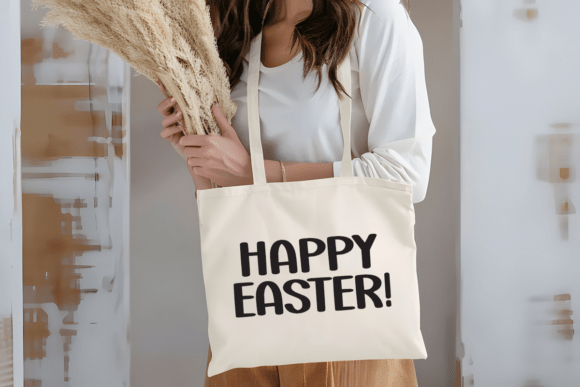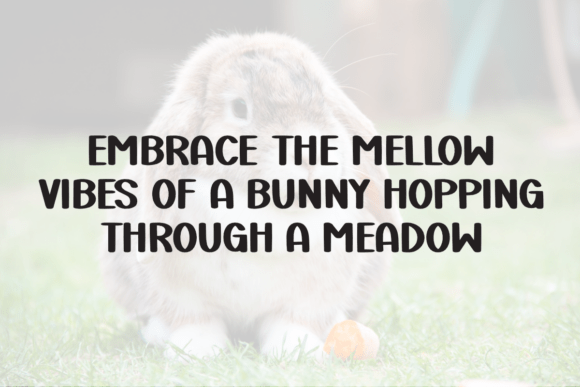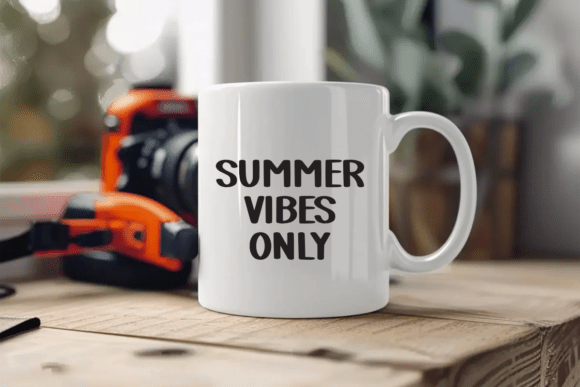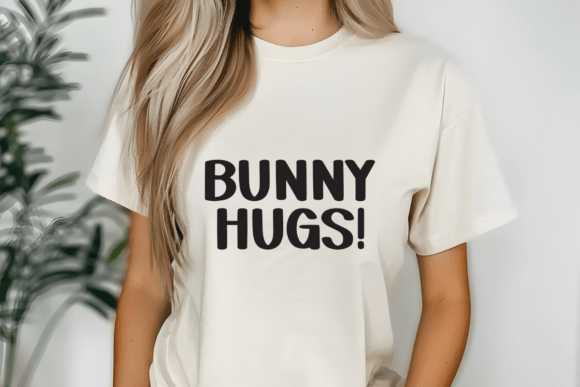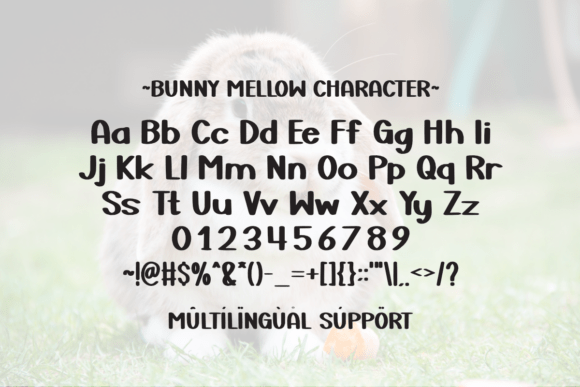
Blossoming Creativity with the Bunny Mellow Font
There’s something magical about sitting down with a blank notebook, a cup of your favorite coffee, and letting your imagination run wild. The sound of the pen gliding across the page, the feel of the paper beneath your fingers, and the joy of watching your ideas come to life – it’s a sensation that never gets old. As creatives, we’re always on the lookout for tools that can help us capture this feeling and bring our visions to reality.
That’s where the Bunny Mellow Font comes in – a natural sans serif handwritten font that adds a touch of whimsy and charm to any project. With its organic design and versatility, it’s the perfect companion for designers who want to create beautiful and functional pieces that inspire and delight. Whether you’re working on a weekly planner, a print-on-demand project, or a heartfelt invitation, the Bunny Mellow Font is sure to bring a smile to your face and a touch of magic to your creations.
Bunny Mellow Font Key Features
- Font Family: Bunny Mellow Font is a sans-serif typeface designed for modern and playful applications.
- Unique Characteristics: Bunny Mellow Font features a distinctive rounded design with subtle curves, making it perfect for branding, logos, and digital interfaces.
Bunny Mellow Font Review
I recently had the chance to work with the Bunny Mellow Font, and here’s my honest take on it.
- The Bunny Mellow Font has a unique, playful vibe that’s perfect for creating a whimsical atmosphere.
- The font is highly customizable, allowing users to adjust the size, color, and style to suit their needs.
- The font’s irregular shape and organic feel make it stand out in a crowd, perfect for adding a touch of personality to designs.
- The Bunny Mellow Font is highly legible, even at smaller font sizes, making it a great choice for body text.
- The font may not be suitable for formal or professional designs, as it can come across as too casual.
- The Bunny Mellow Font may not be as versatile as other fonts, and may not work well in certain contexts.
- The font’s irregular shape can make it difficult to read in certain situations, such as when used for headings or titles.
Overall, the Bunny Mellow Font is a fun and creative option that’s perfect for designers looking to add a touch of personality to their work. While it may have some limitations, it’s a great choice for projects that require a playful, whimsical feel.
Tips for Getting the Most Out of Bunny Mellow Font
For the best results, use Bunny Mellow Font in conjunction with pastel colors and soft textures.
Experiment with different font sizes and styles to create a unique look.
Use Bunny Mellow Font for designs that require a playful and whimsical touch.
Bunny Mellow Font is ideal for:
Children’s book illustrations
Branding and marketing materials
Printable art and wall decor